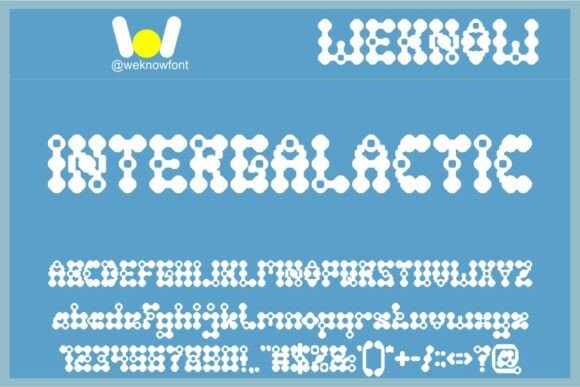
Intergalactic: A Sci-Fi Display Font for Editorial Impact
When your publication needs to signal something extraordinary—before a single word is read—the right display font does more than decorate. It sets tone, invites curiosity, and quietly reinforces your editorial voice. Intergalactic isn’t just another futuristic typeface. It’s a modular, highly distinctive sci-fi display font built for designers who craft experiences across blogs, digital magazines, print guides, and branded content assets.
Visually, Intergalactic evokes stellar navigation systems, alien circuitry, and luminous liquid metal—sharp angles interwoven with subtle organic flow, glowing terminals and precise geometric nodes. Its letterforms balance technical precision with expressive rhythm: no two ‘A’s are identical in its alternate set, and ligatures respond intelligently to context. This isn’t novelty for novelty’s sake—it’s intentional visual language that supports storytelling with atmosphere.
In editorial design, Intergalactic thrives where attention must be earned and held. Use it for magazine covers that stand out on crowded digital newsstands—or printed issues where tactile contrast matters. Apply it to ebook titles and chapter openers to mark thematic shifts: imagine a climate fiction anthology where each section begins with an Intergalactic header pulsing like a distant beacon. For newsletters, deploy it sparingly but decisively—on subject lines previewed in inbox thumbnails, or as bold pull-quote accents layered over minimalist photography.
Its modular nature means you can mix weights and glyphs deliberately—not just for variety, but for hierarchy. A heavier weight anchors a cover headline; a lighter, spaced-out version works elegantly as a subtitle beneath serif body text. In printable planners or coaching workbooks, Intergalactic adds thematic cohesion without sacrificing clarity: think “Week 3: Quantum Habits” rendered in crisp, confident geometry atop clean sans-serif instructions.
Readability is intentional here—but not universal. Intergalactic is designed for short-form impact, not extended reading. It shines in headings, section dividers, quote graphics, logo lockups, and social media banners—never as body copy. On screen, its high-contrast forms render cleanly at 24px and above, even on mid-resolution mobile displays. In PDF exports, it embeds reliably with full glyph support, including Latin-1 and basic diacritics—ideal for bilingual lifestyle blogs or globally distributed digital magazines.
Pairing is where Intergalactic reveals its editorial maturity. Anchor it with a warm, highly legible serif—like Adobe Garamond or PT Serif—for long-form articles or ebook interiors. For modern digital magazines or creator newsletters, contrast its structured energy with a neutral, humanist sans serif such as Inter or Lato for captions, navigation, and callouts. Avoid pairing it with other display fonts or scripts; its personality demands breathing room. Let it lead, then recede gracefully into supporting type.
Consider how it serves specific formats:
What makes Intergalactic editorially durable isn’t just its aesthetic—it’s how thoughtfully it occupies its role. It doesn’t try to be everything. It excels where display fonts should: commanding attention, deepening mood, and reinforcing identity without competing with content. That restraint is rare in sci-fi typography, where excess often overshadows utility.
For independent publishers building recognizable brands, Intergalactic offers consistency across touchpoints: the same sharp ‘T’ appears in your Substack banner, your latest ebook cover, and the header of your printable resource library. That repetition builds recognition—not through repetition alone, but through coherent visual logic. Readers begin to associate that precise, luminous geometry with your voice: intelligent, forward-looking, and unafraid of creative risk.
If your current display font feels interchangeable—or worse, invisible—Intergalactic is worth testing not as decoration, but as a deliberate editorial decision. Try it on a single newsletter header this week. Drop it into a chapter opener for your next guide. See how readers pause, how shares increase, how your own excitement about the layout renews. Good typography shouldn’t just look right. It should feel like the next logical step in how your ideas land—and how they linger.